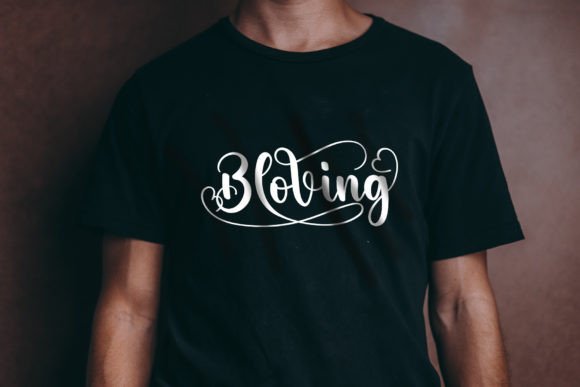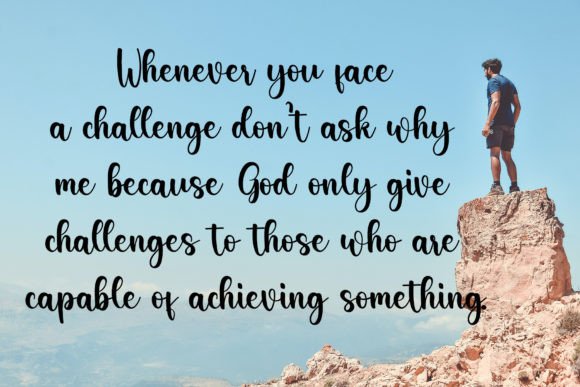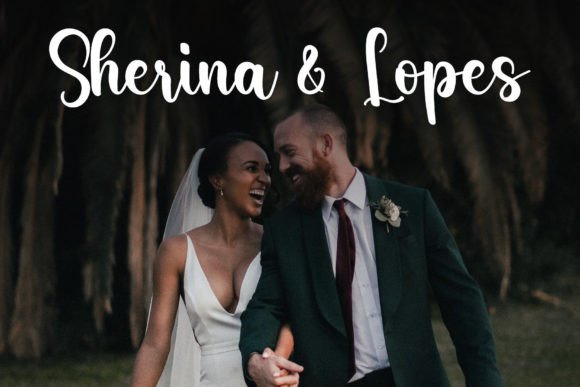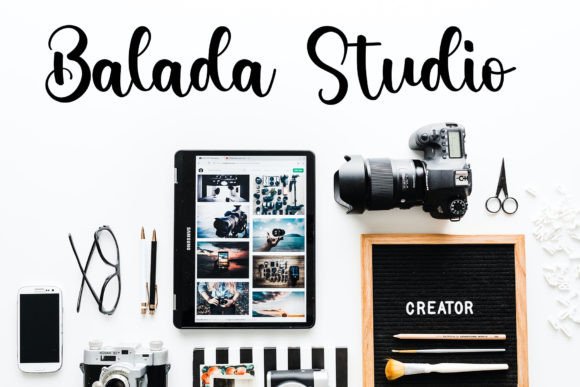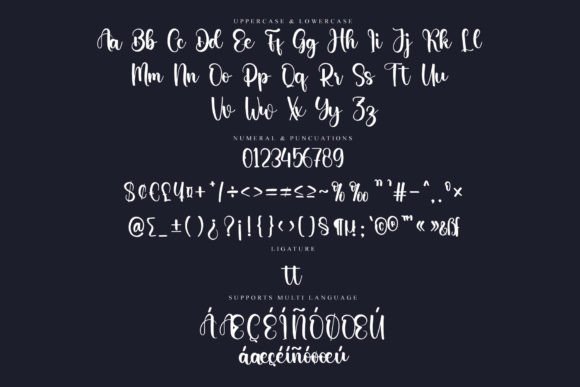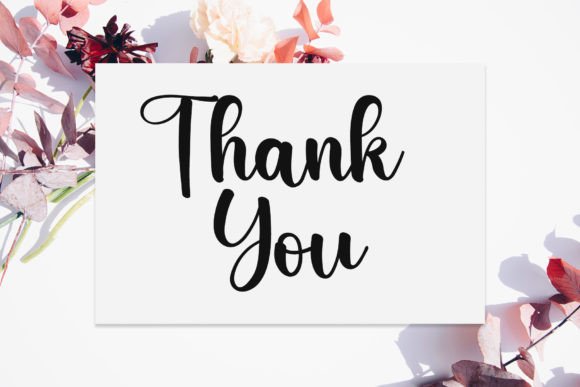
Introduction to Floving Font
Have you ever found yourself stuck on a creative project, struggling to convey the perfect message or evoke the right emotions? You’re not alone. We’ve all been there, pouring over design options and typography, searching for that one special something that sets our project apart. For designers, the right font can make all the difference in bringing a vision to life.
That’s where the stunning Floving Font comes in – a stylish and dainty script font that’s perfect for any project requiring a touch of elegance and sophistication. With its high-quality design and PUA encoding, this font is an invaluable resource for designers looking to add a beautiful script taste to their work.
Whether you’re working on a logo, branding project, label, or photography, the Floving Font is a must-have design resource that’s sure to elevate your creative project to the next level.
Key Features of Floving Font
- Unique, modern design suitable for creative projects and innovative designs
- High-quality font with a transparent background, allowing for seamless integration into various design elements
- Designed to be versatile, making it an ideal design resource for various creative projects and applications
- Perfect for use in graphic design, digital art, and other creative pursuits
Honest Review: Floving Font
I recently came across the Floving Font and was excited to give it a try for my next creative project. I’m a designer who loves discovering new high-quality design resources that can elevate my work. The Floving Font did not disappoint.
Here’s what works well: ✨ The font is highly customizable, allowing me to easily adjust the size, color, and style to fit my design needs. The transparent background feature is a game-changer for me, as it makes it easy to layer the font over different backgrounds without any fuss. Additionally, the free download option is a huge bonus – it’s always great to have access to high-quality design resources without breaking the bank.
As for limitations: ⚠️ I did find that the font can be a bit tricky to use on certain platforms, particularly on older browsers. However, this is not a major issue and can be easily worked around with a little experimentation.
Overall, I’m really impressed with the Floving Font. It’s a fantastic design resource that I would highly recommend to anyone looking to add some creativity to their next project.
Floving Font
Floving Font is a high-quality design resource that can elevate your creative project. With a transparent background, it’s perfect for adding a touch of elegance to your designs.
- Combine Floving Font with other design elements for a unique look
- Use the transparent background feature to create a sense of depth